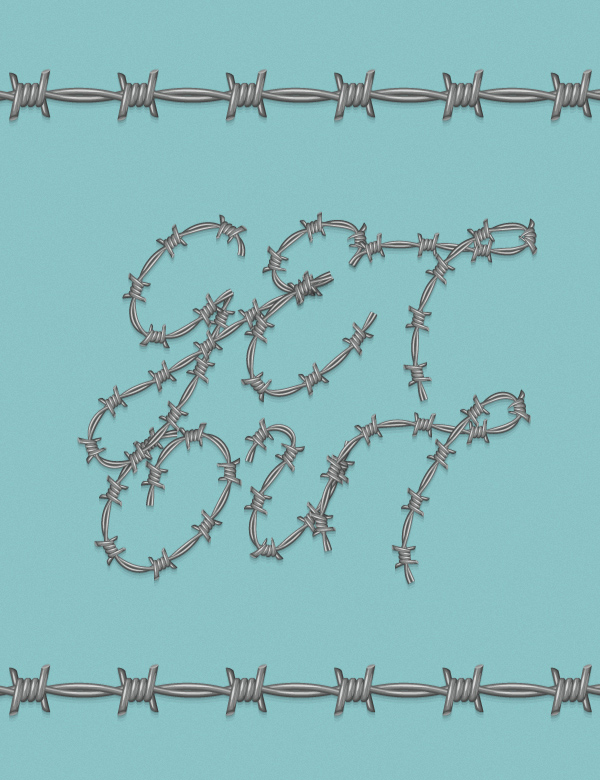
Barbed Wire Font Adobe
Barbed Wire Font Adobe. Barbed wire for your urban designs. Looking for barbed wire fonts?
Draw Lines With Your Barbed Wire Brush Above And Below The Text.
These can be opened in any software and manually placed. Looking for barbed wire fonts? Link objects together to make longer strands of fence.
It Is Deigned By Kirt Elzner.